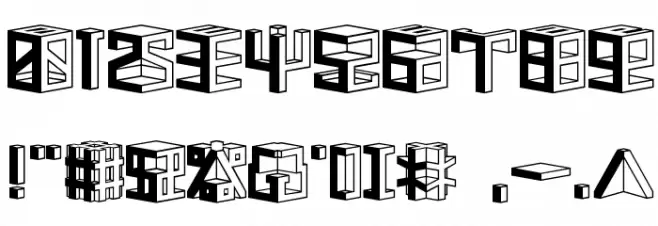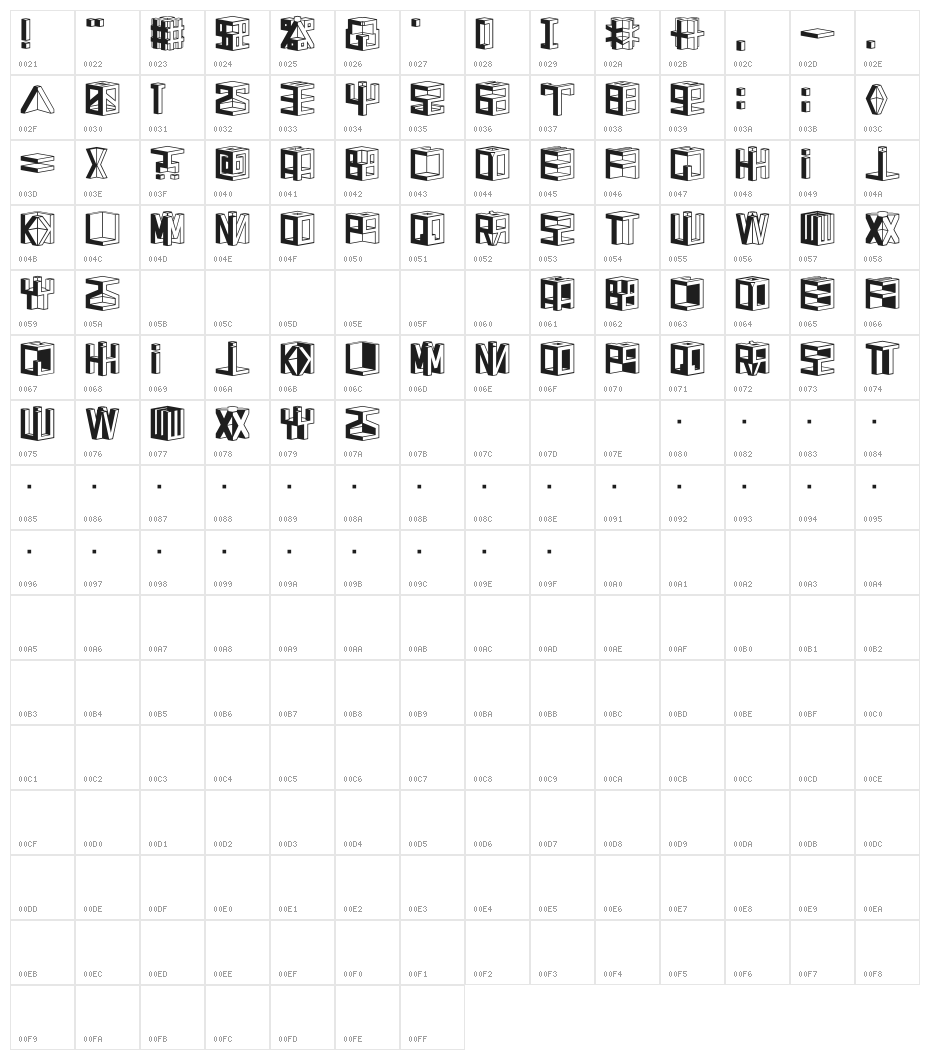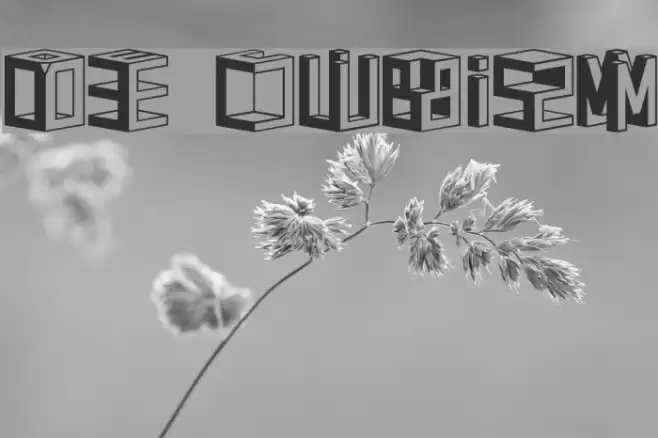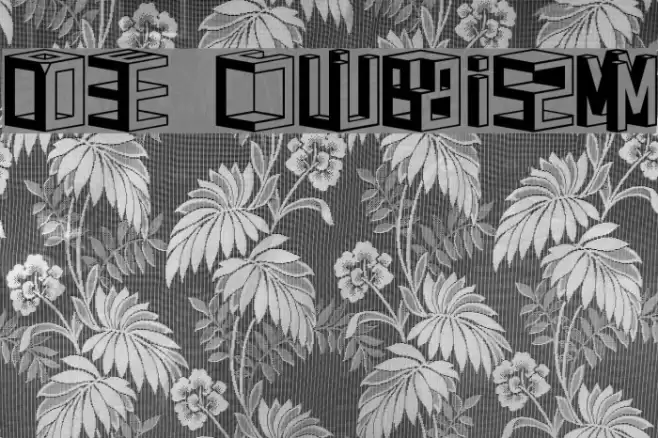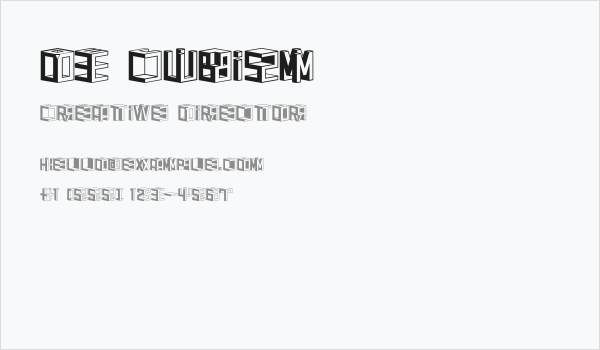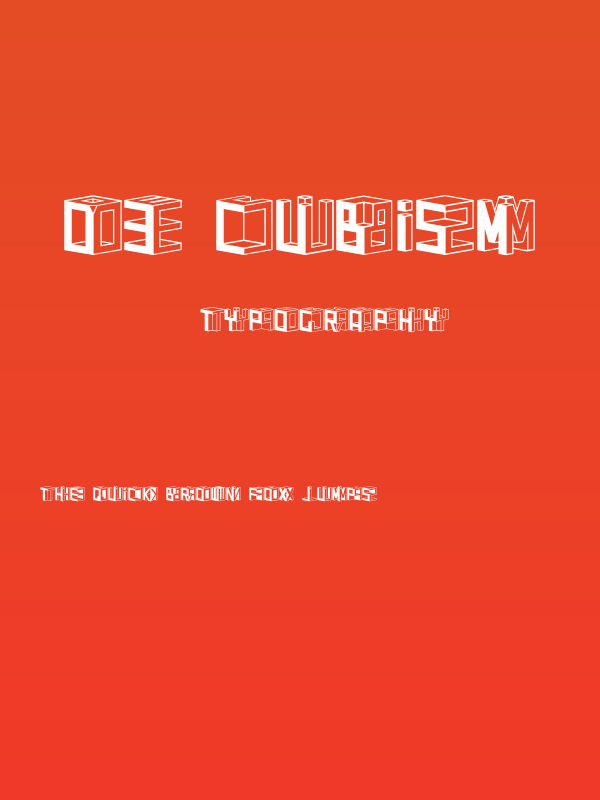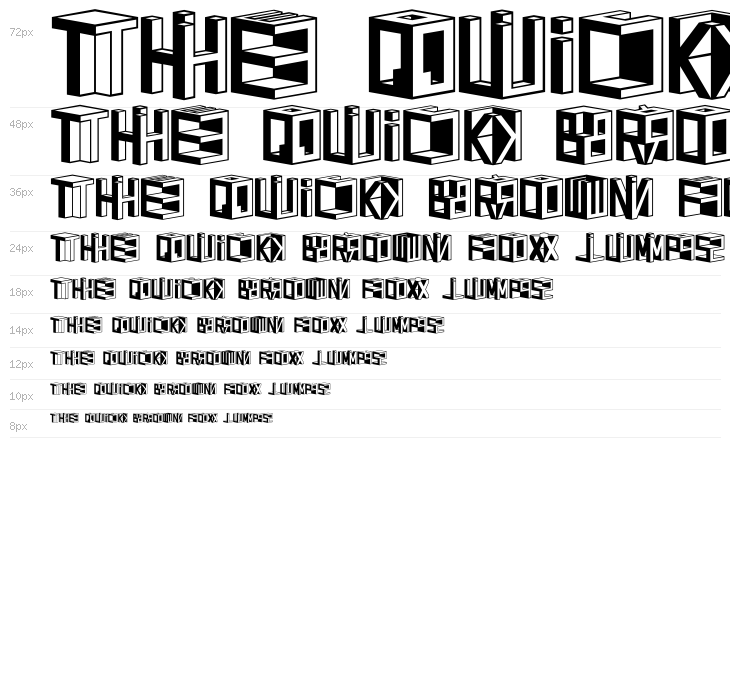
D3 Cubism Font
D3 Cubism Description
This font features a bold, three-dimensional geometric style that draws inspiration from cubism. Each character is designed with a blocky, angular structure, giving the impression of depth and solidity. The letters are constructed with thick lines and sharp edges, creating a striking visual impact. The use of negative space within the characters adds to the illusion of three-dimensionality, making it a standout choice for eye-catching designs. The font's unique style is both modern and artistic, suitable for projects that require a bold statement.
| Proposed Projects | Ideal for posters, album covers, video game graphics, and any project needing a bold, artistic touch. |